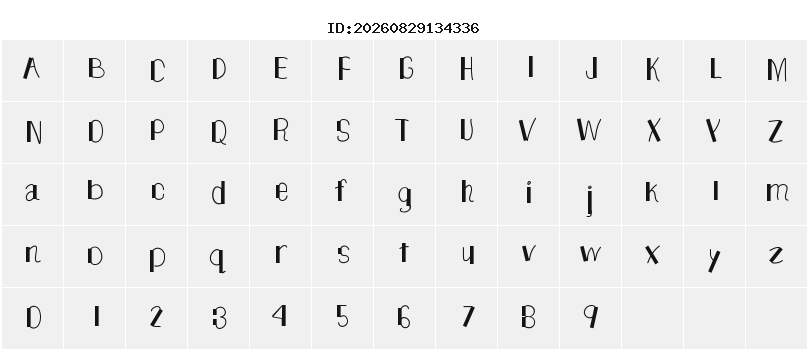
TheUnknownSide Preview
• Font Name: TheUnknownSide
• Full Font Name: TheUnknownSide
• PostScript Name: TheUnknownSide
About TheUnknownSide.ttf
TheUnknownSide.ttf is a modern, elegant sans-serif font designed for ultimate readability and visual harmony. Perfect for branding, headlines, web design, and print materials.